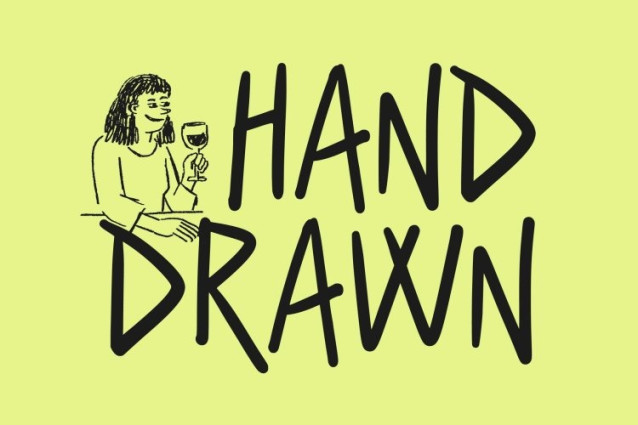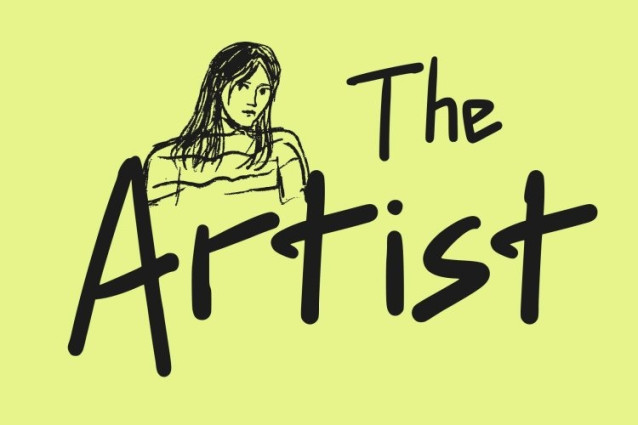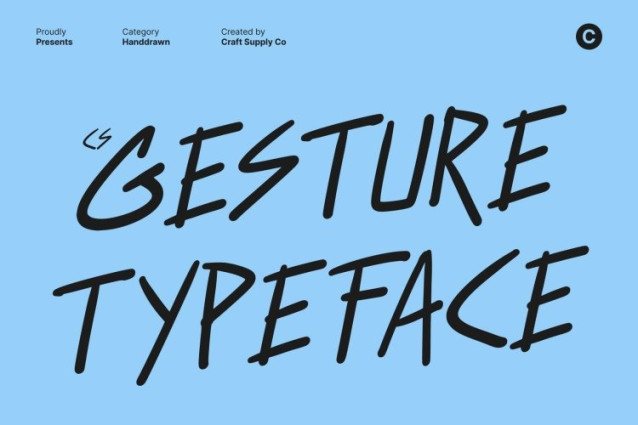
CS Gesture Font
CS Gesture Font – This is a handwritten display font designed to emulate the organic flow of natural pen strokes. Its soft, fluid shapes give every word a lively, personal touch, capturing the warmth and spontaneity of human handwriting. Ideal for projects that need an approachable and expressive tone, it brings authenticity to any design.
Smooth, Flowing Letterforms for Readability and Style
The font’s letterforms combine clarity with aesthetic charm, ensuring legibility without losing personality. Each character maintains a consistent rhythm, making it perfect for continuous text, short quotes, or display purposes where a human touch is desired. This font balances readability with artistic flair.
Warm and Authentic Design for Emotional Connection
With its handmade feel, this font adds an intimate and friendly character to designs. The font communicates a sense of care, creativity, and personality, making it ideal for personal projects, social media visuals, or branding that wants to feel approachable and heartfelt.
Perfect for Branding, Quotes, Invitations, and Casual Designs
This font excels in applications where warmth and authenticity matter. From personal branding and inspirational quotes to casual invitations or lifestyle product packaging, it delivers a charming, expressive, and human touch. This font transforms ordinary text into engaging, memorable typography that feels both natural and stylish.